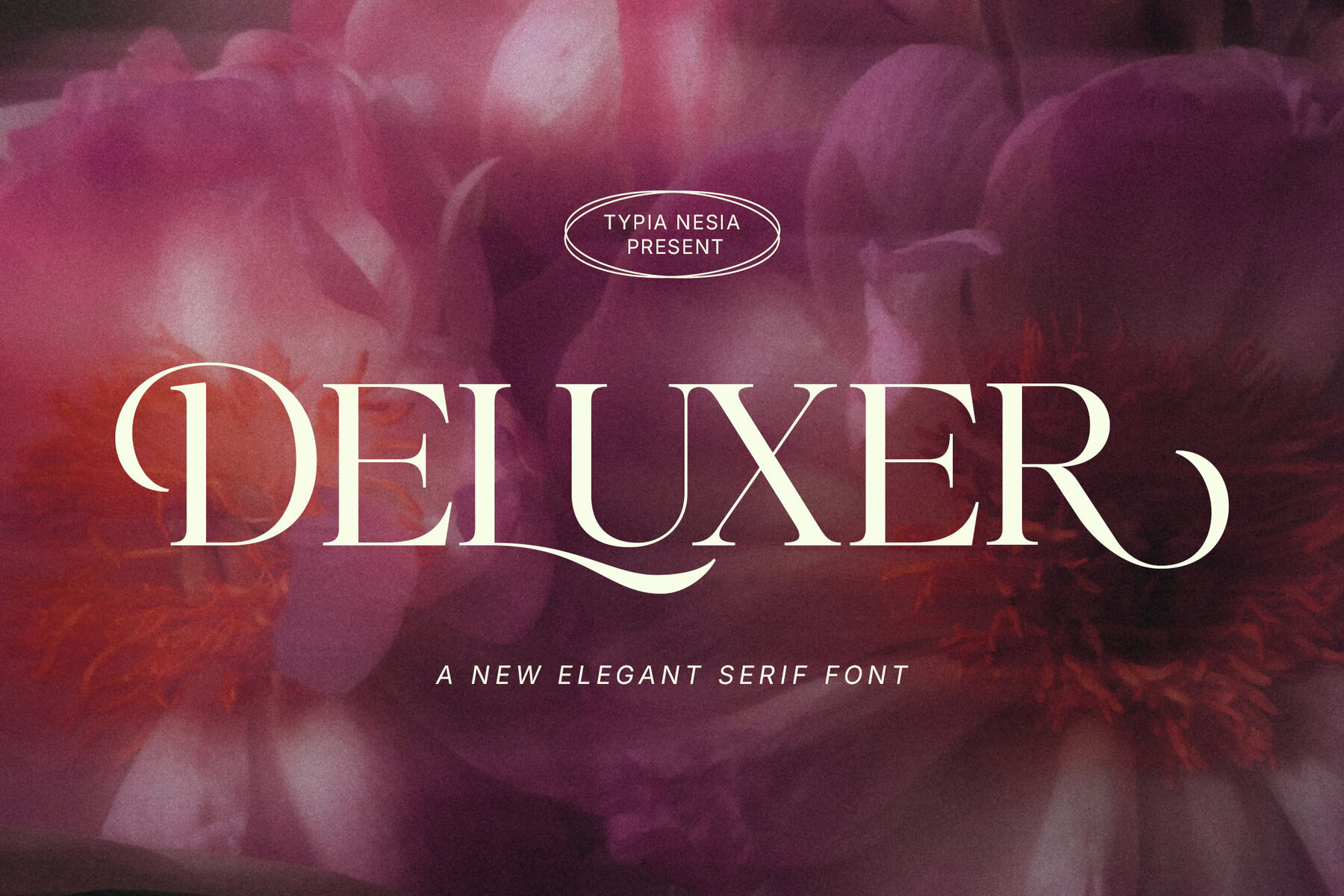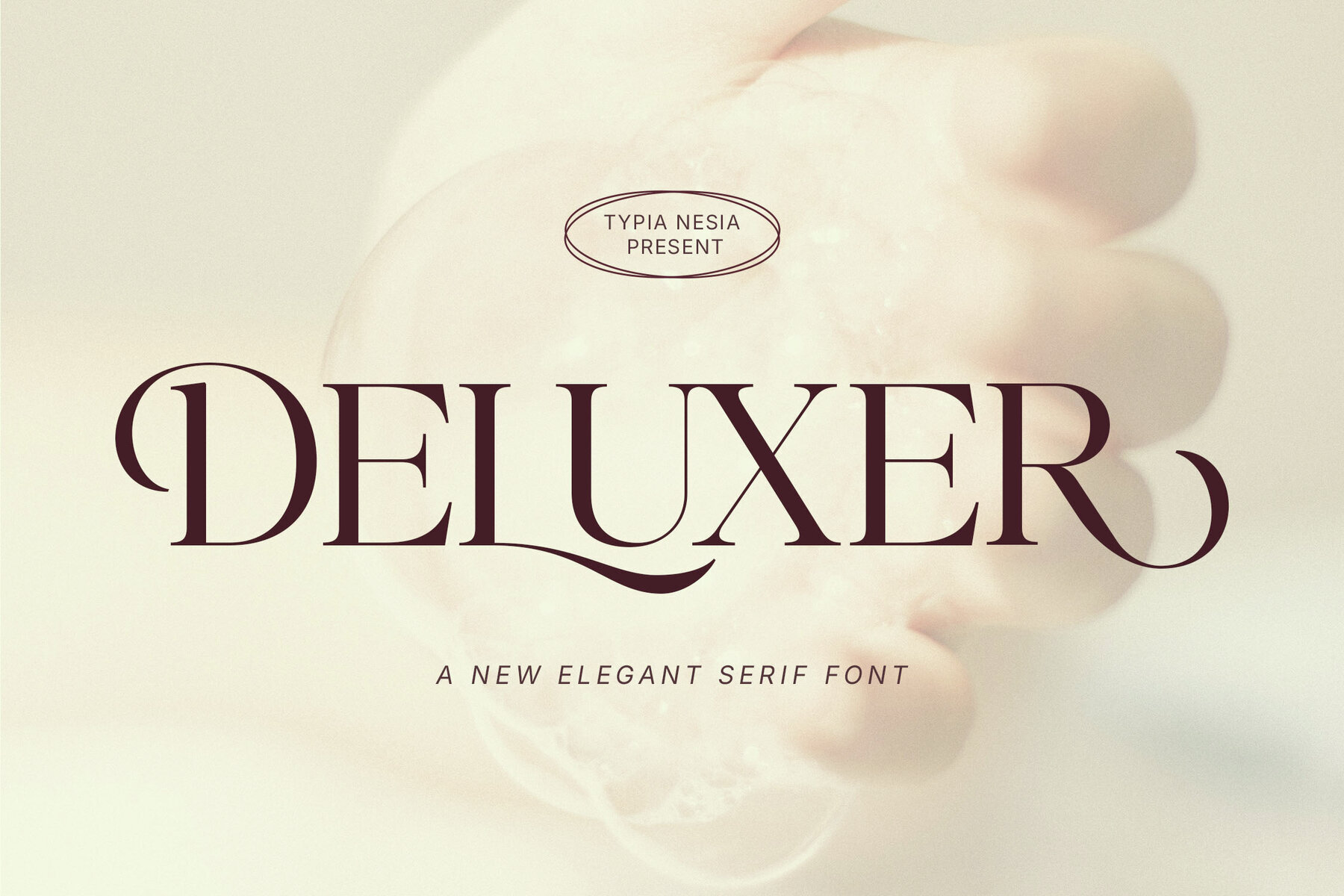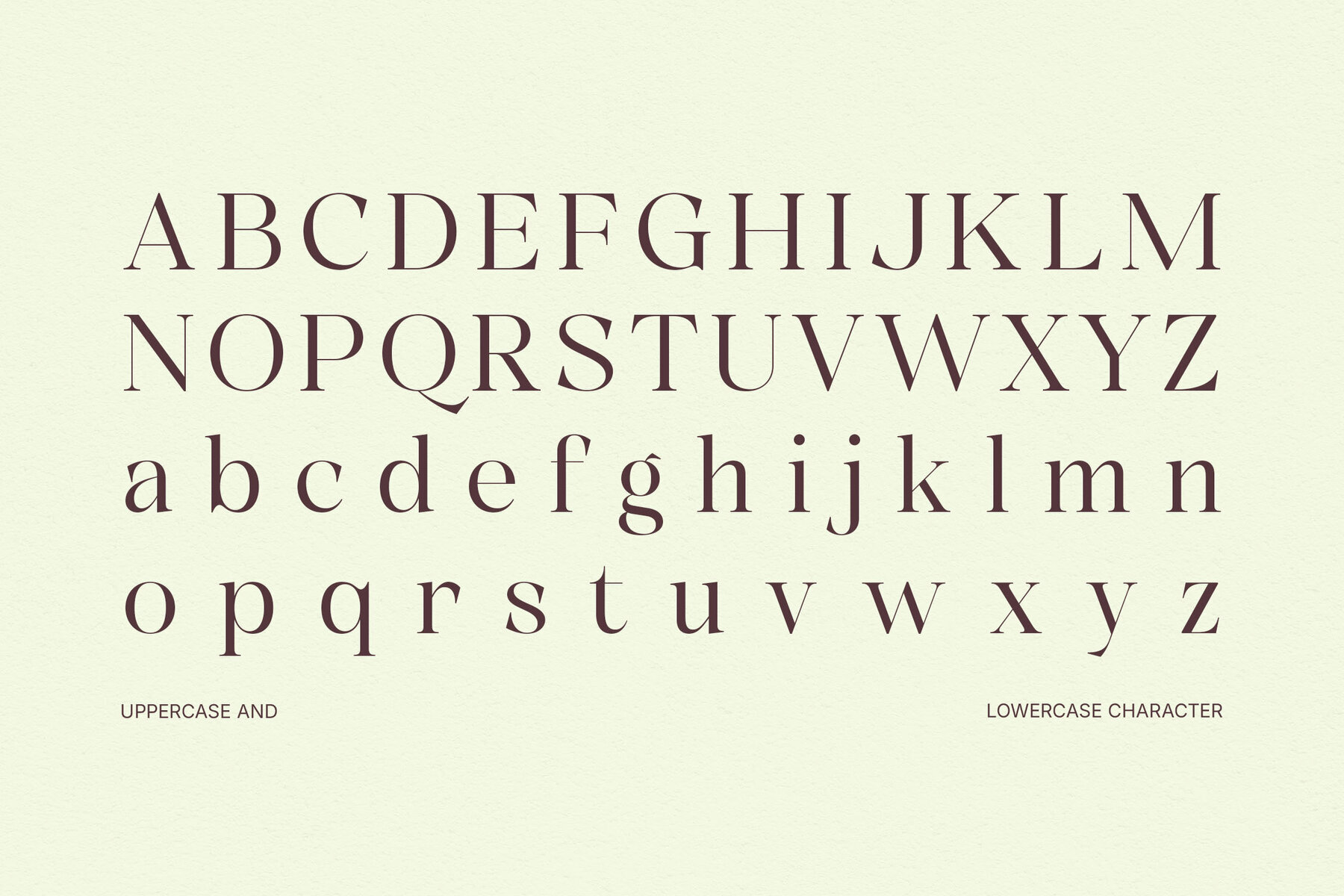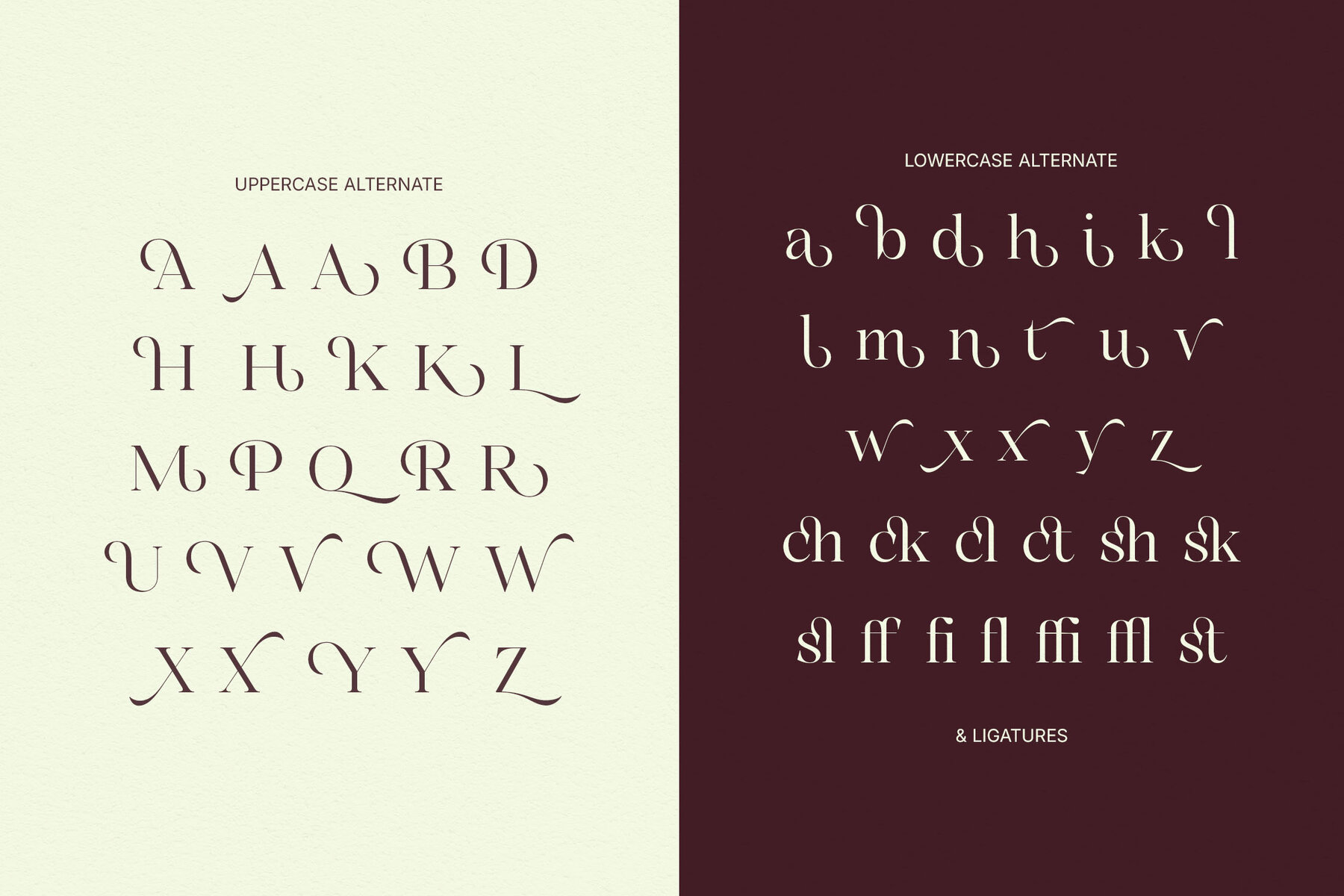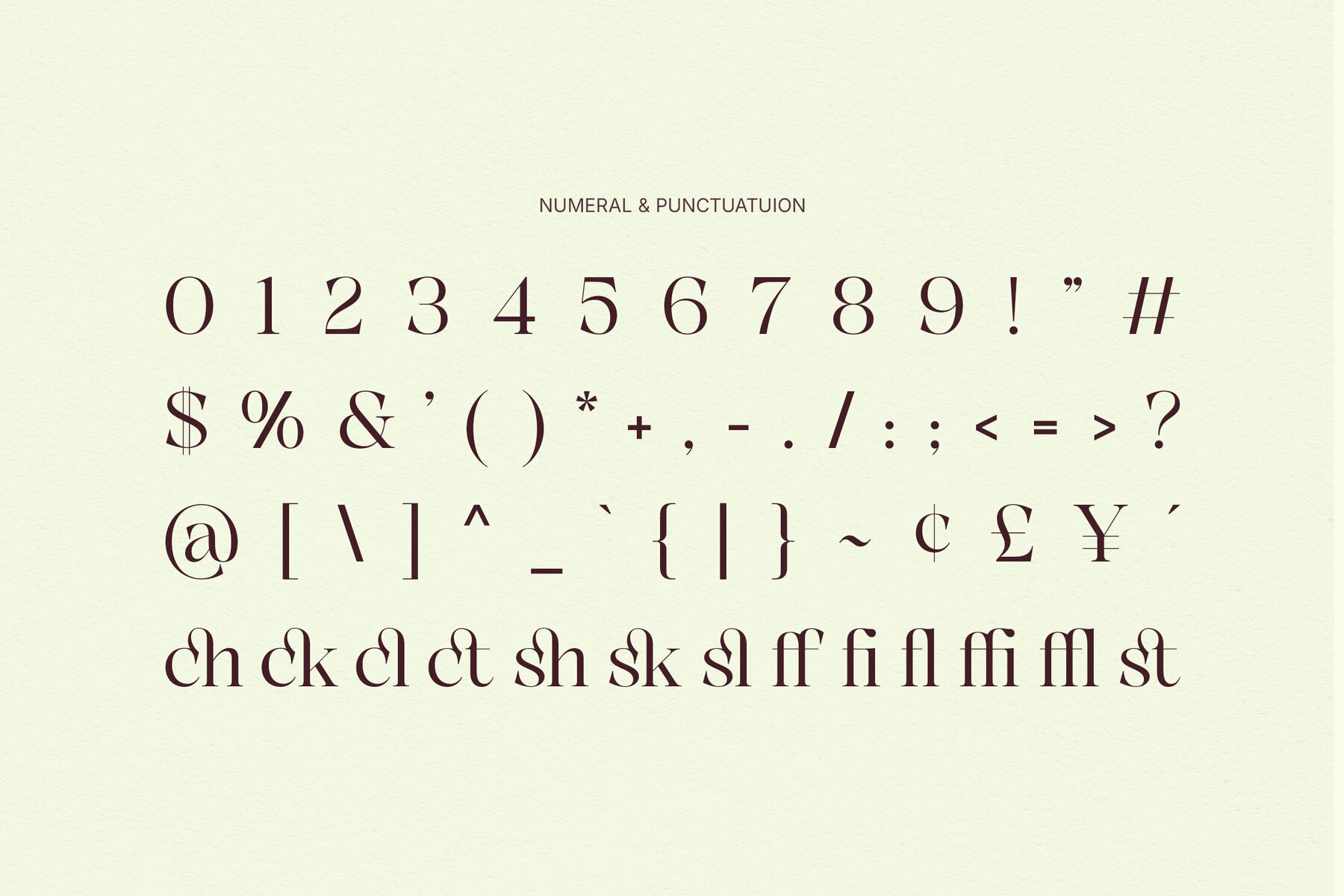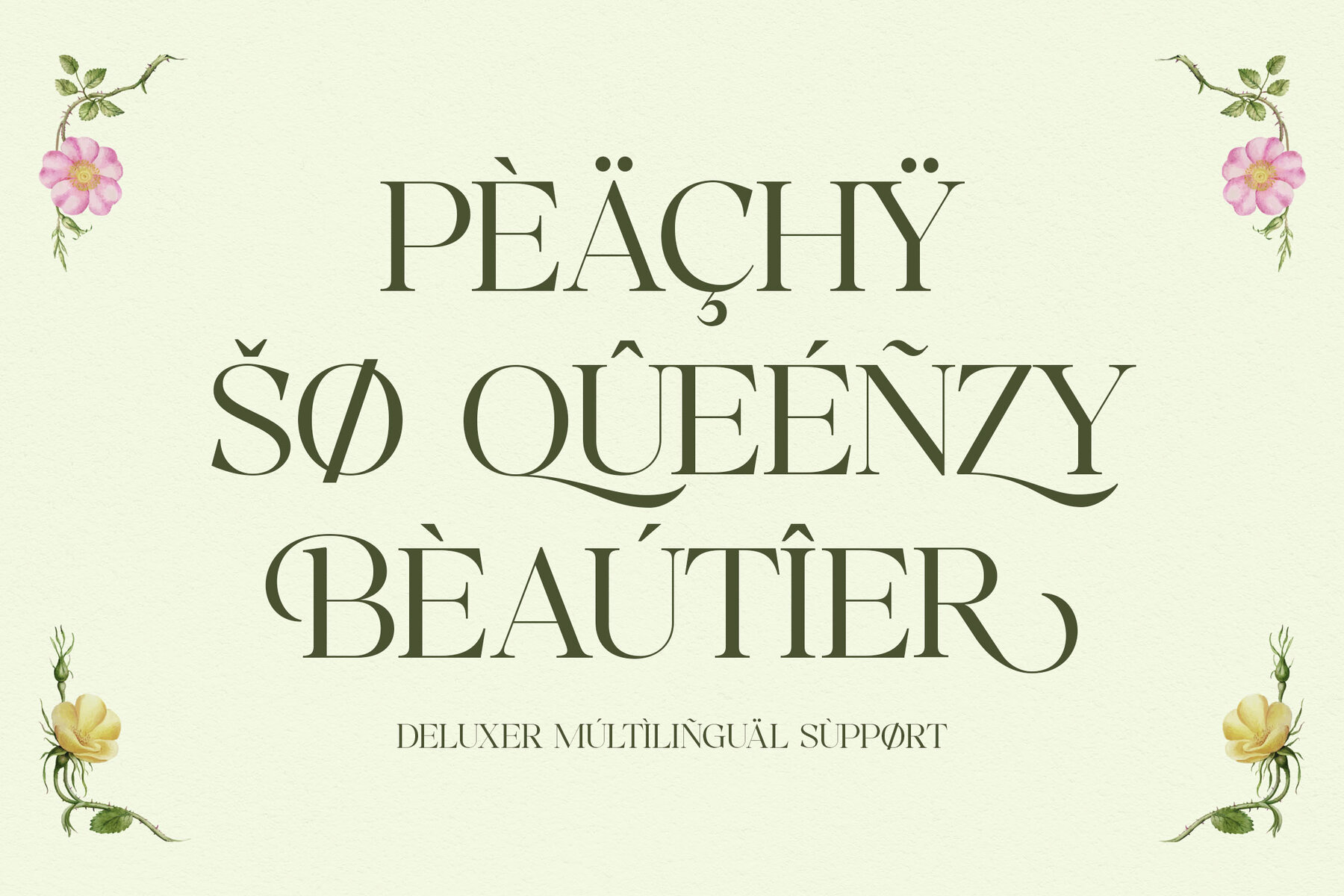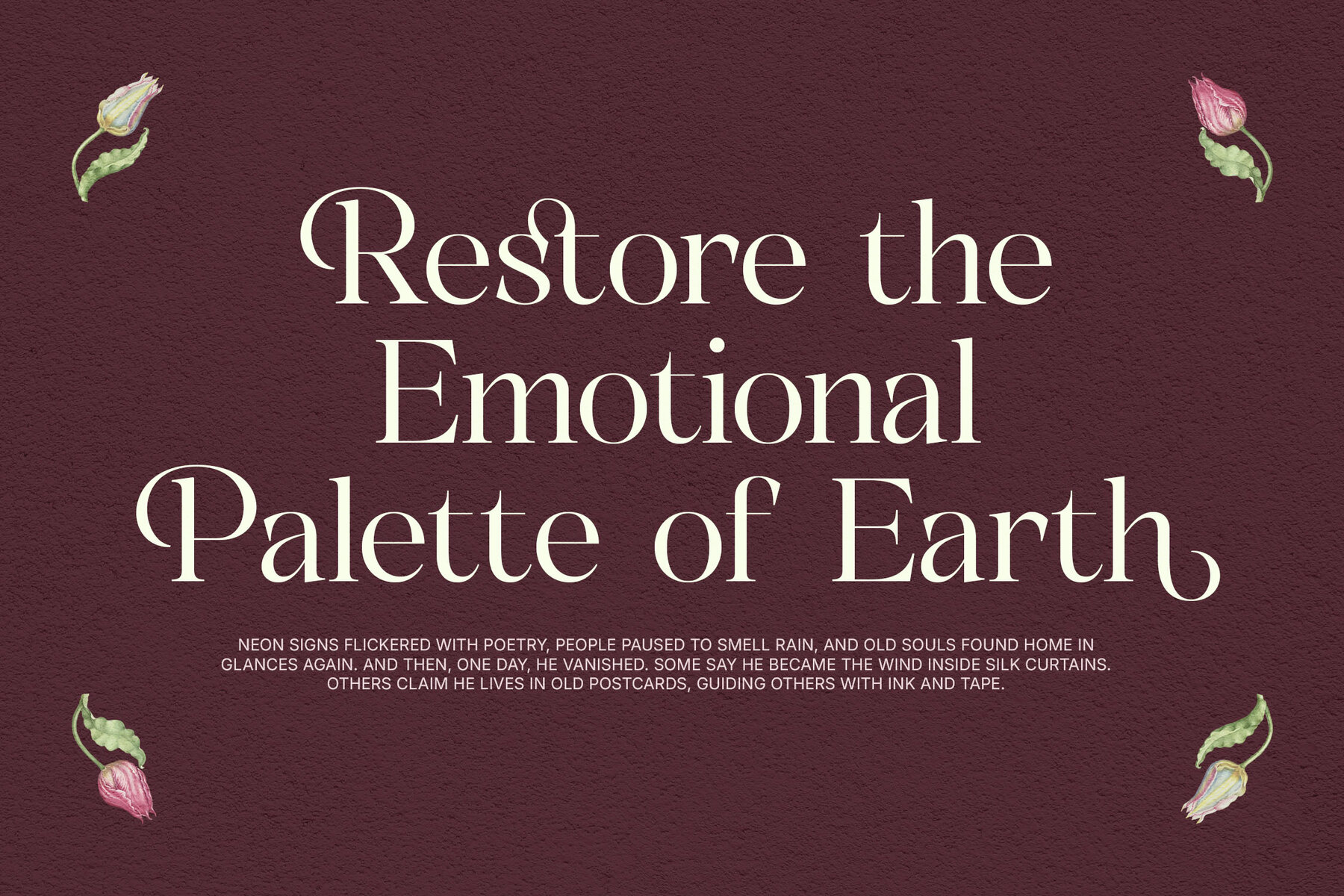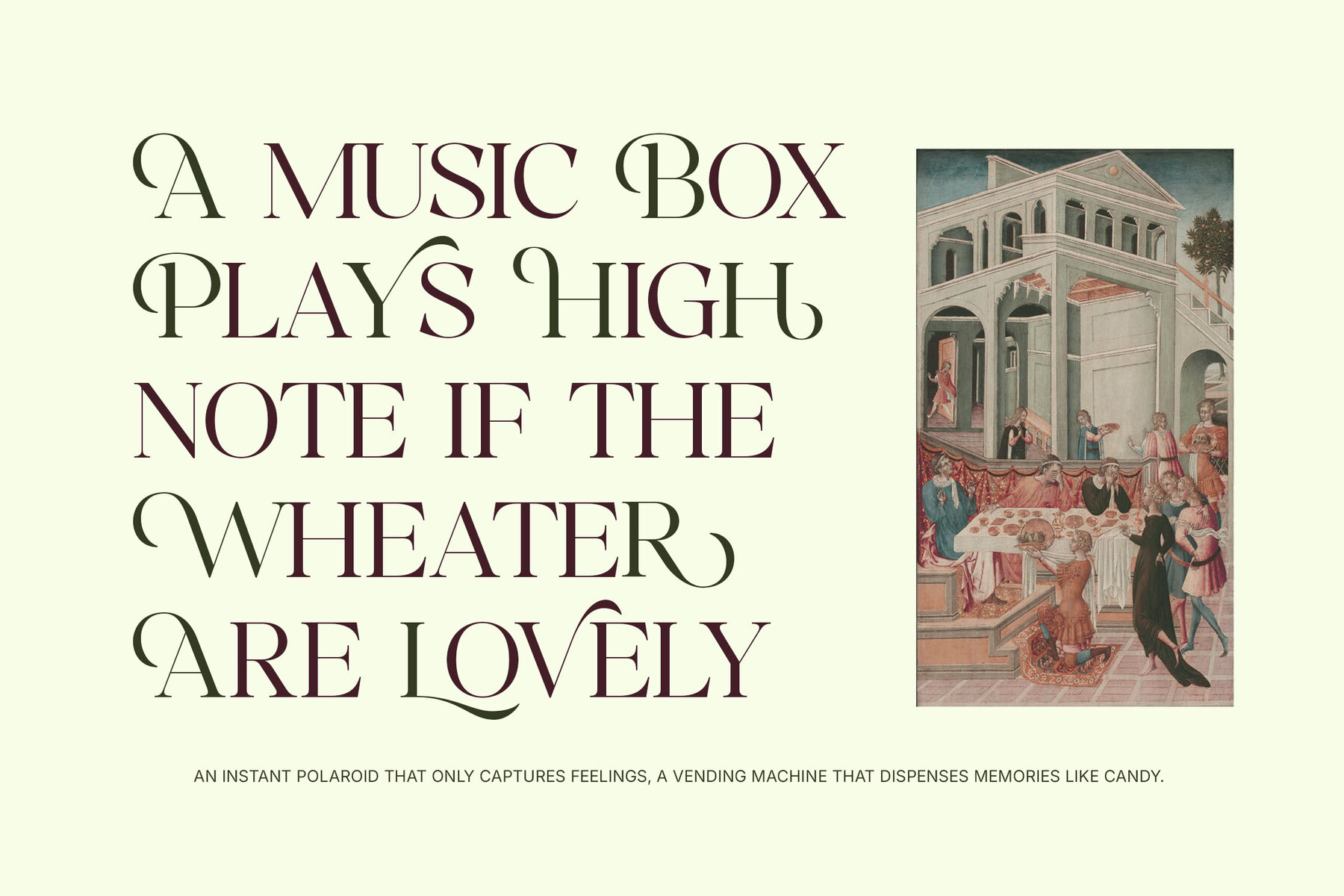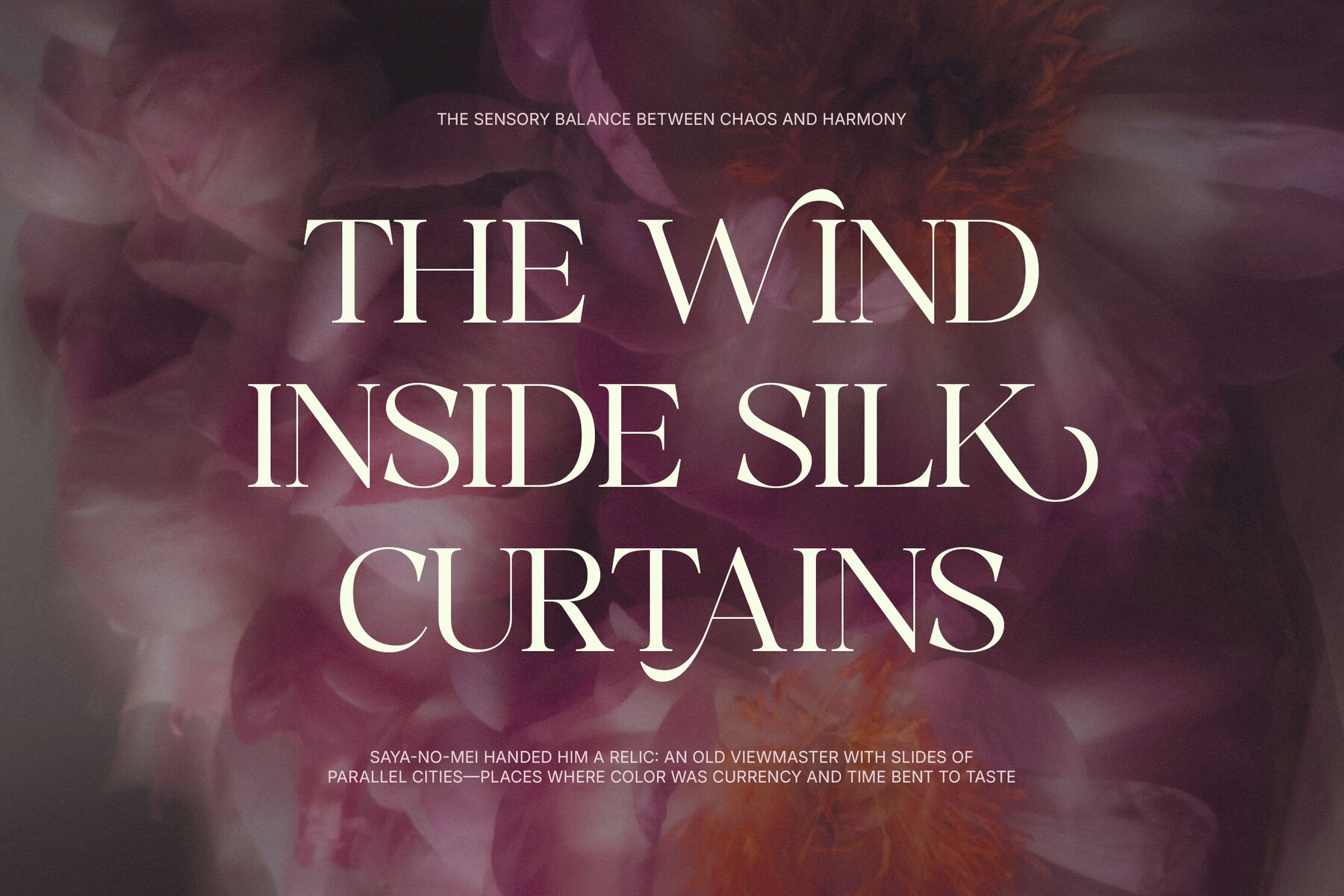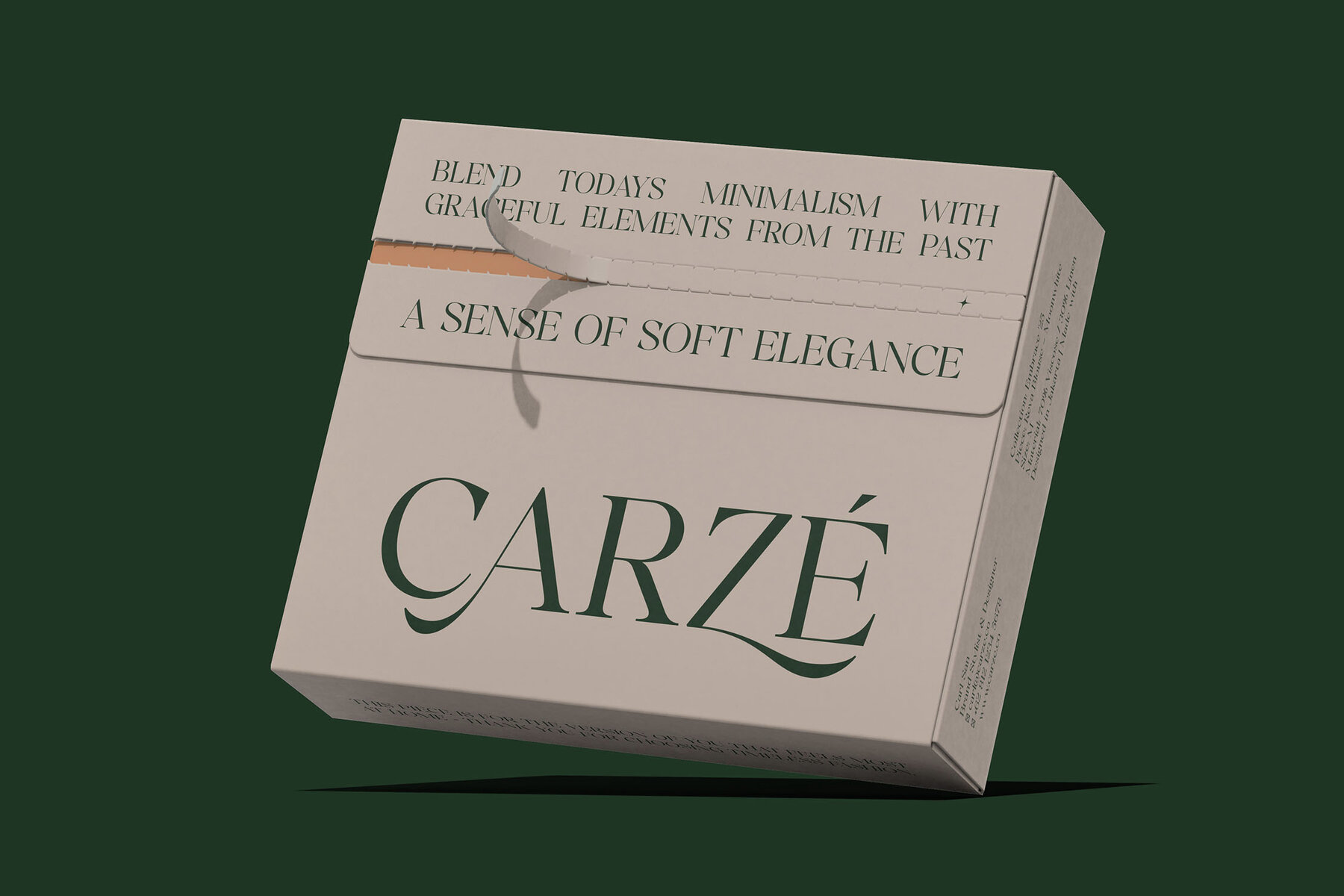
Deluxer Font
Deluxer Regular
Deluxer is an elegant and modern serif typeface that embodies luxury and refinement. Its striking high-contrast letterforms and graceful curves are complemented by a stunning range of luxury alternates and ligatures. This exquisite font opens a realm of typographic possibilities, perfect for elevating high-end fashion brands, beauty products, editorial layouts, wedding invitations, posters, logos, advertising campaigns, and premium packaging. Deluxer infuses every design with an air of elegance and exclusivity, ensuring a truly luxurious and distinguished look.Deluxer: Elegant Modern Serif Typeface